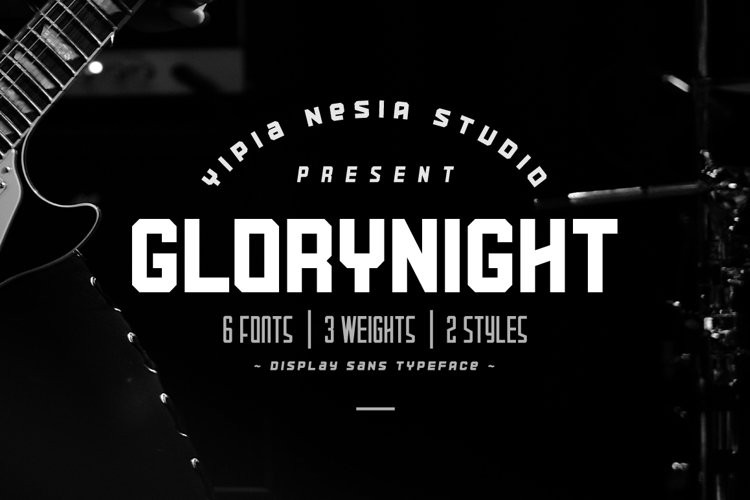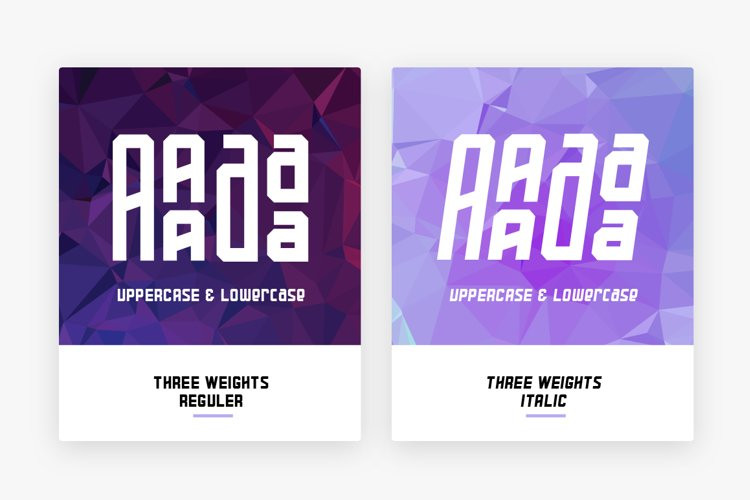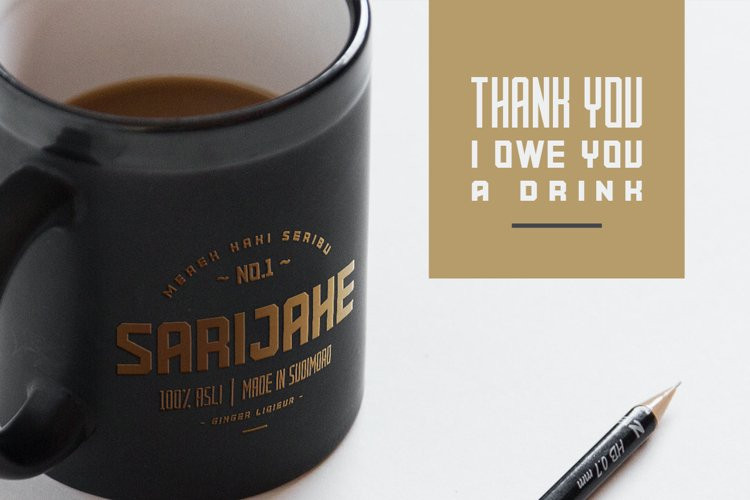
Glorynight Font
Glorynight FontGlorynight is the ULTIMATE Display Sans font pack of 3 weight ( reguler, tall, short ) and 3 italic. Comes with Uppercase and Lowercase, Punctuation, Numerals. Includes a range of multilingual support.
Made with the principle of octagonal form. It look manly, classy and strong. Suitable for any design needs : technological, sport, fashion, modern branding, modern advertising, print identity, magazine, website, mobile application and more.